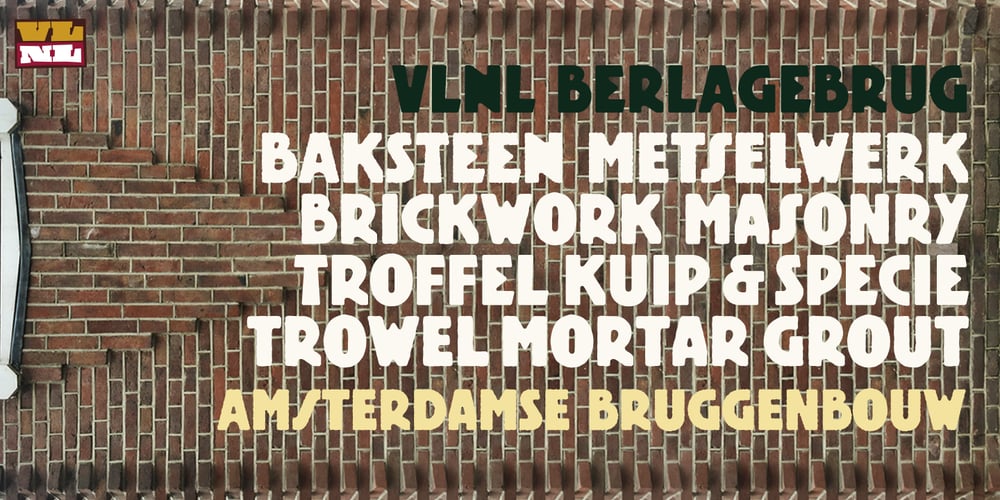
VLNL Berlagebrug Font Family was designed by Donald Beekman and published by VetteLetters. VLNL Berlagebrug contains 3 styles and family package options. VLNL Berlagebrug Designer Donald DBXL Beekman daily crosses the Berlage bridge spanning the Amstel river in Amsterdam. The Berlagebrug was built as part of the city planning project ‘Plan Zuid’ by H.P.Berlage and opened in May 1932. Its name, carved out of two granite headstones, sparked the design of this font family. The original lettering is attributed to Anton Kurvers in the early 19th century, and can be seen on many Amsterdam buildings and bridges. It’s typical lettering of the Amsterdamse School, the Dutch equivalent of the expressionist art deco architectural style, and mostly known for its extravagant brick work. VLNL Berlagebrug is a rounded display font that comes in three outline styles matching the building materials used in the bridge. Gietijzer (cast iron) is smooth, Zandsteen (sandstone) has a softly distressed outline, and Graniet (granite) is outspoken rough and crumbled. The capital letters in VLNL Berlagebrug are in the Amsterdamse school style, the lowercases are more straight alternate capitals, giving you more design options.